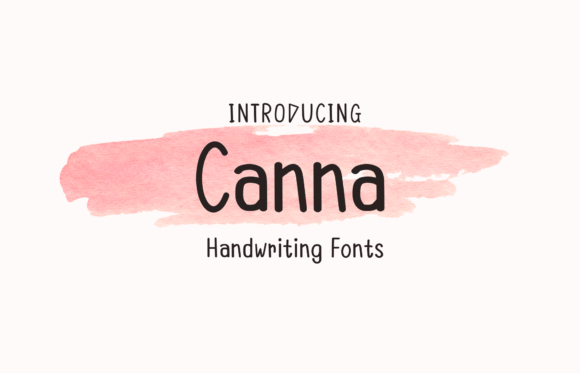
The Sweet and Friendly Canna Font: A Designer’s New Best Friend
I’ll never forget the time I was working on a wedding invitation project, and my client asked for a font that was “fun, playful, and not too formal.” I scoured the internet, tried out a dozen fonts, but none seemed to fit the bill. That was until I stumbled upon the Canna font. This sweet and friendly handwritten display font has been a game-changer for my design projects, and I’m excited to share its awesomeness with you! 😊
An Honest Review of Canna Font
- ✨ Cute and fun: Canna font is perfect for adding a playful touch to any design project.
- ✅ Highly versatile: It works great for crafts, digital design, presentations, wedding invitations, cards, and more.
- 💡 Easy to read: Despite its playful nature, Canna font is surprisingly easy to read, even in smaller sizes.
- 🎨 Great for creative projects: Comic book style, game design, love shirts, posters, and movie titles – Canna font is up for the task!
While Canna font is amazing, it’s not perfect. Here are a few things to keep in mind:
- 🤔 Limited use in formal contexts: Canna font is playful, so it might not be the best fit for formal documents or corporate designs.
- ⚠️ Some letters may get lost in all-caps: A few letters, like “i” and “l”, might lose their distinctive shape when used in all-caps.
- Experiment with OpenType features, like glyphs and stylistic alternates, to add some personality to your design.
- Explore OpenType features, like swashes and ligatures, to add some flair to your design.
The Backstory of Canna Font
Canna font was designed with love and care by a talented font designer who wanted to create a font that would bring joy to designers and crafters alike. The designer’s inspiration came from a mix of traditional handwriting and modern digital design. The result is a font that’s both sweet and sophisticated.
Q: Does Canna font come with any OpenType features?
A: Yes, Canna font includes a range of OpenType features, including glyphs, stylistic alternates, and more.